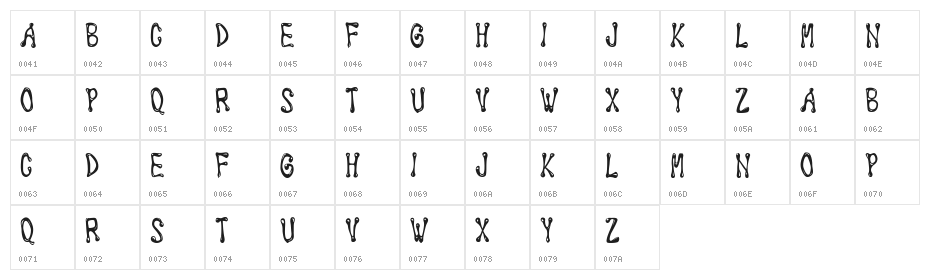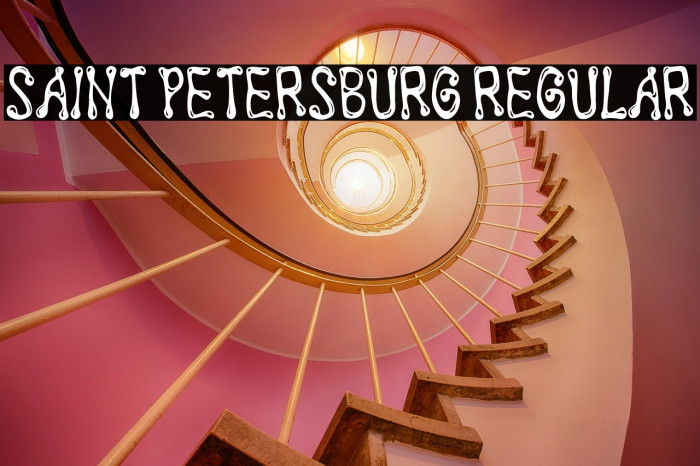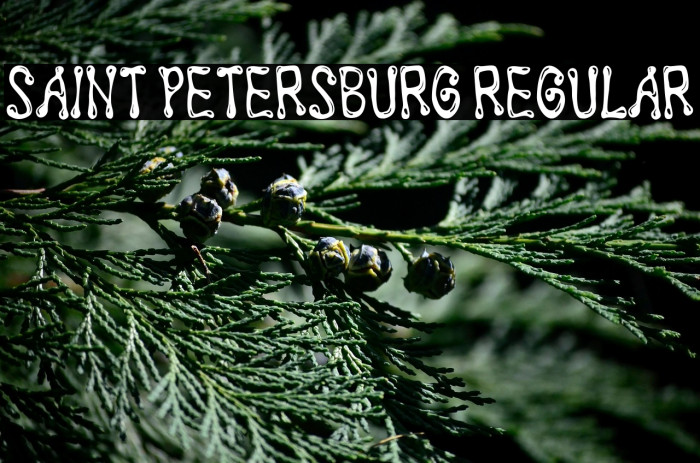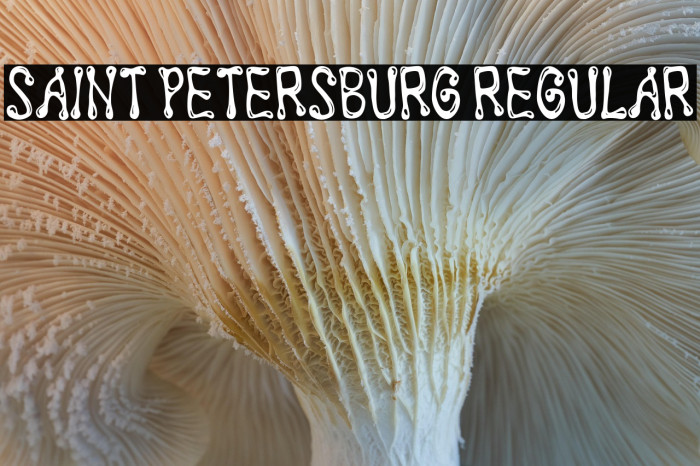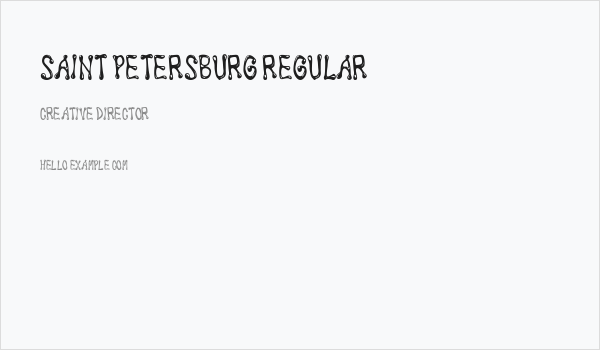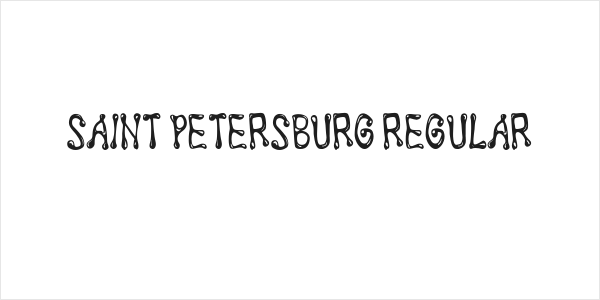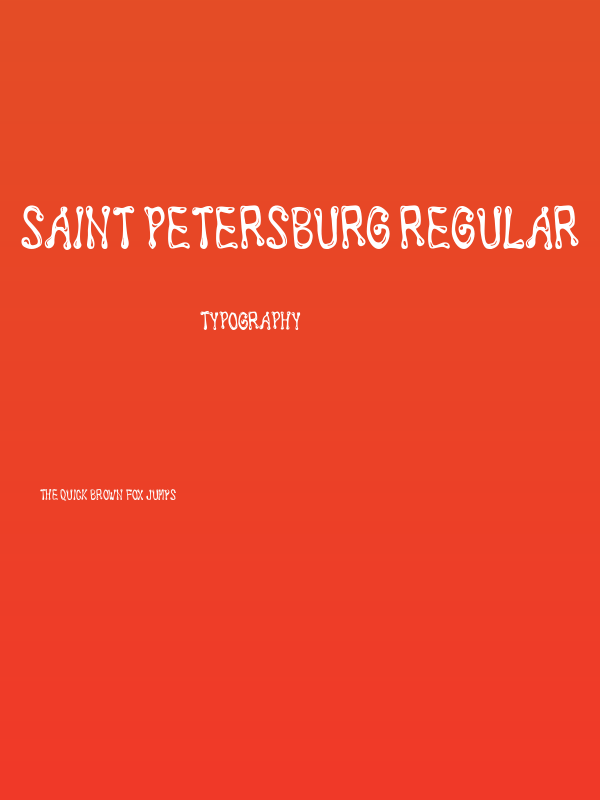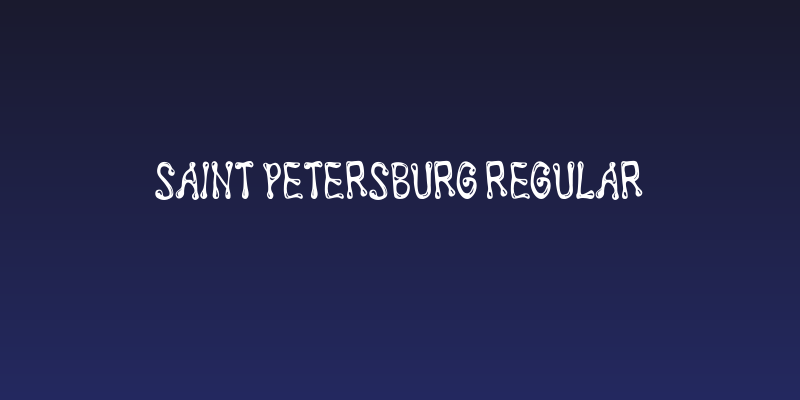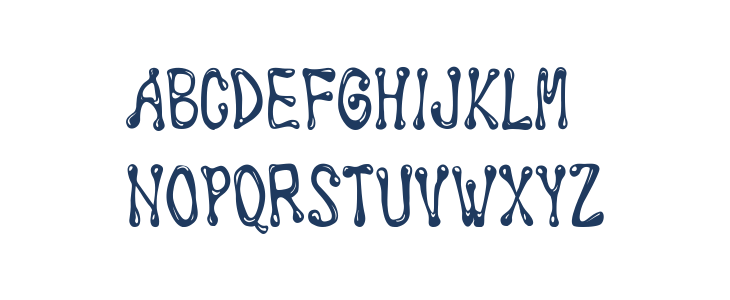
Saint Petersburg Regular Font
Saint Petersburg Regular Description
This font features a playful and whimsical design with a unique, fluid appearance. Each character is crafted with a bold, rounded style that gives off a lively and dynamic feel. The letters have a distinctive, almost liquid-like quality, with varying thicknesses that create a sense of movement and energy. This font is perfect for projects that require a fun and engaging visual element, making it ideal for creative and artistic endeavors. The overall style is decorative, with a modern twist that adds a touch of uniqueness to any design.
| Use Case | Logos, Posters, Creative projects |
| Proposed Projects | Ideal for children's books, playful branding, creative posters, and artistic designs. |